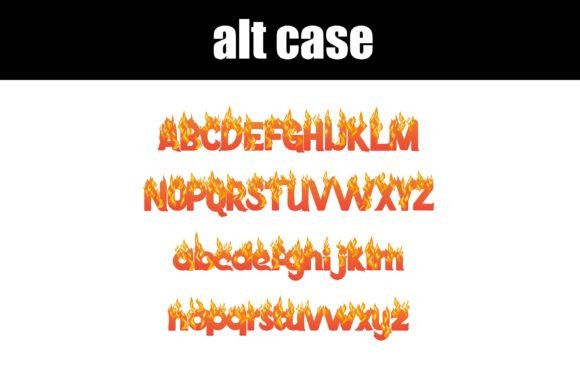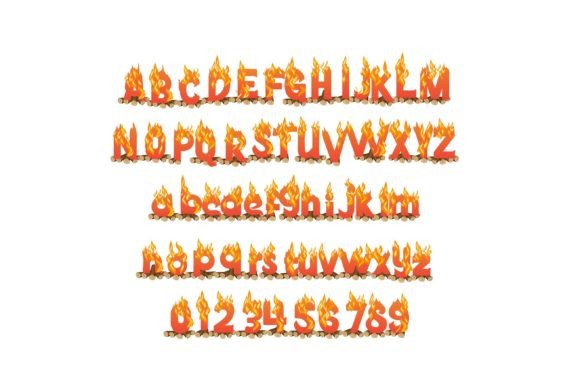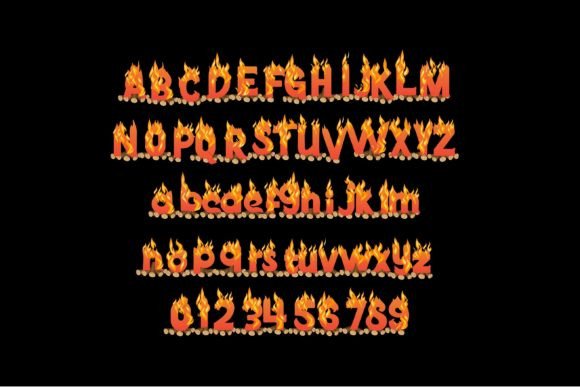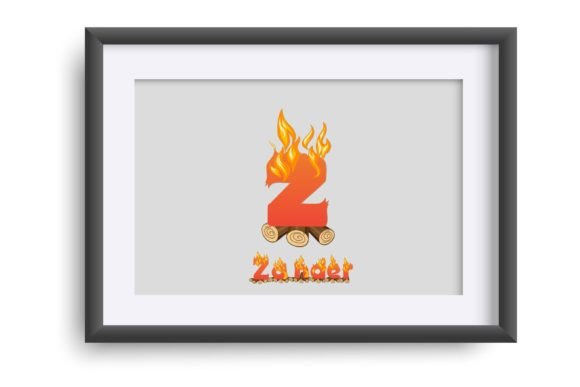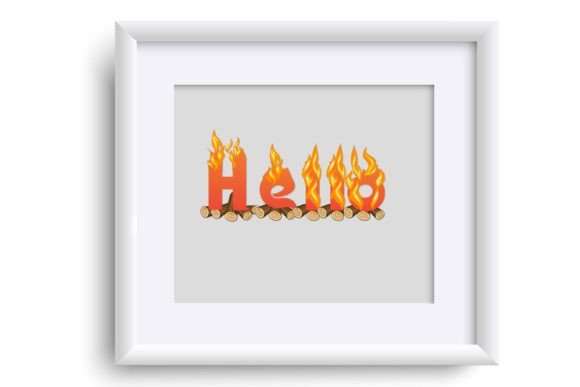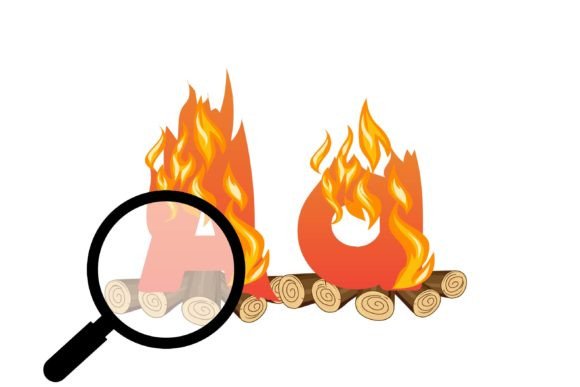
The Campfire Font: A Sizzling Addition to Your Design Toolbox
I’ll never forget the time I was working on a camping-themed project for a client, and I just couldn’t find the right font to capture the cozy, rustic vibe I was going for. The client wanted something that would transport their audience to a crackling campfire on a starry night, but my usual go-to fonts just weren’t cutting it. That’s when I stumbled upon the Campfire Font, and let me tell you, it was a game-changer! 🔥
- ✨ The Campfire Font is a full-color font that features lettering that looks like, well, campfires! It’s like having a tiny, fiery blaze on your screen.
- ✅ The font comes with an alt case of lettering without firewood, which you can access through your system’s character map. It’s like having two fonts in one!
The Designer Inspiration Behind the Campfire Font
The Campfire Font was inspired by the great outdoors – specifically, the warm, cozy glow of a crackling campfire on a starry night. The designer wanted to capture the essence of that magical moment and bring it to life in a font that would transport users to a peaceful, natural setting.